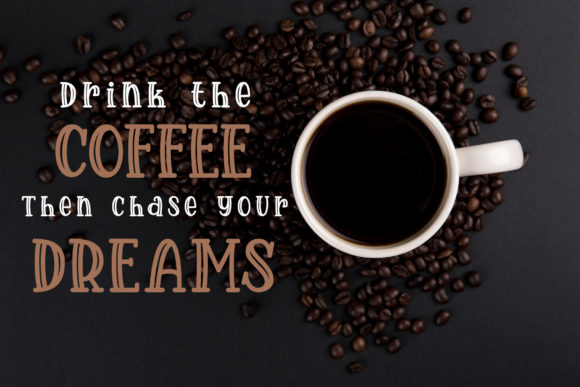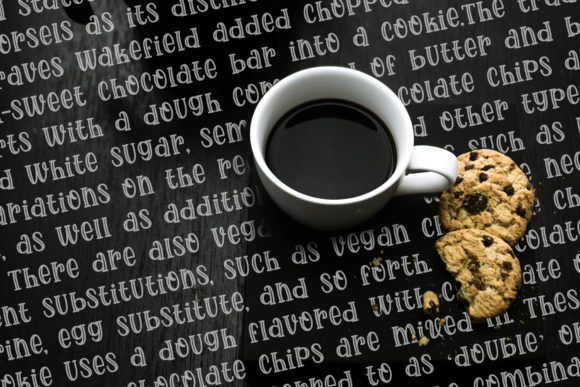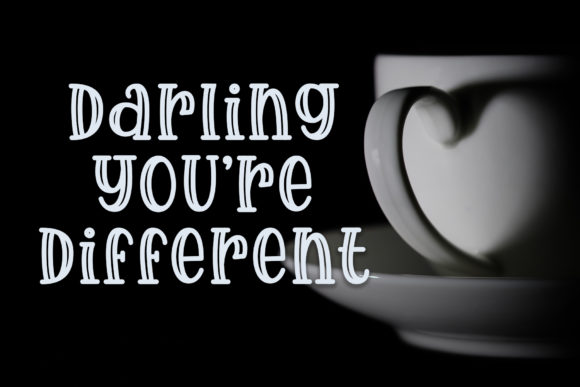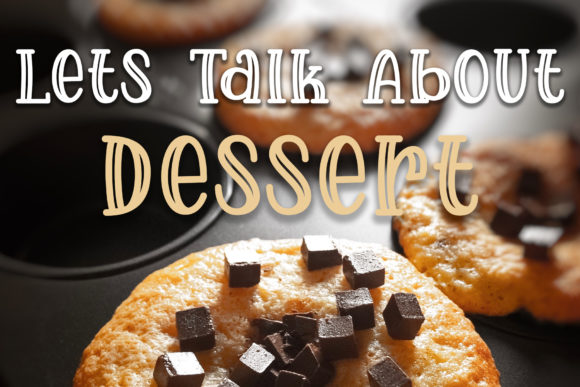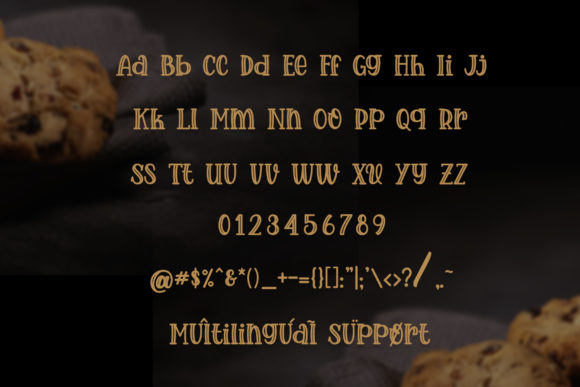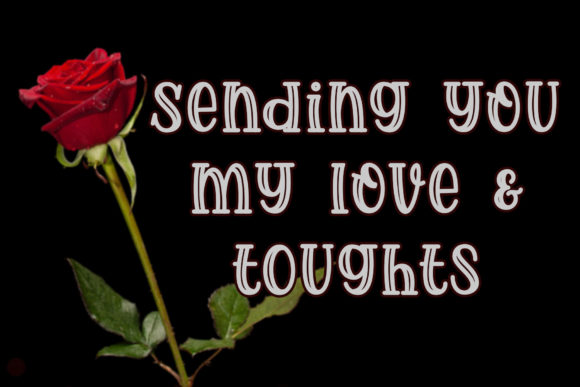
The Sweet Spot: Discovering Choco Cookies Font
I still remember the frustration of working on a craft project, determined to make it stand out, but struggling to find the perfect font. My client wanted something playful, yet elegant, and I was on a mission to deliver. That’s when I stumbled upon Choco Cookies, a unique handwritten font that instantly caught my attention. With its funny and playful vibe, it was exactly what I needed to turn my crafting idea into a true standout.
- ✨ Unique and playful handwritten style that’s perfect for crafting and design projects
- ✅ Easy to read and understand, even at smaller font sizes
- 🎉 Fun and quirky vibe that’s sure to add personality to your designs
While Choco Cookies is an amazing font, there are a few things to keep in mind:
- 🤔 Some letters may appear a bit uneven or wobbly, which can be a charming characteristic of handwritten fonts
- ⚠️ May not be the best choice for very formal or professional designs, as it’s quite playful and casual
- Experiment with OpenType features, such as ligatures and stylistic alternates, to add more personality to your text
- Explore the font’s glyphs and OpenType features, such as swashes and alternates, to add more flair to your design
The Story Behind Choco Cookies
Choco Cookies was designed with one goal in mind: to create a font that’s both fun and functional. The designer, inspired by the joy of baking and sharing cookies, wanted to capture the playful, carefree spirit of childhood. The result is a font that’s perfect for crafting, DIY projects, and any design that needs a touch of whimsy.
Q: Is Choco Cookies a versatile font?
A: Absolutely! Choco Cookies works well for a variety of design projects, from crafting and DIY to branding and advertising.